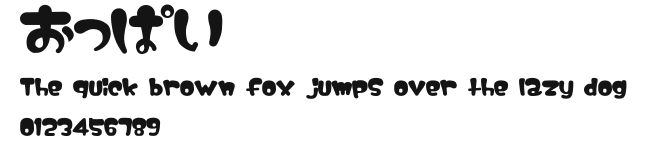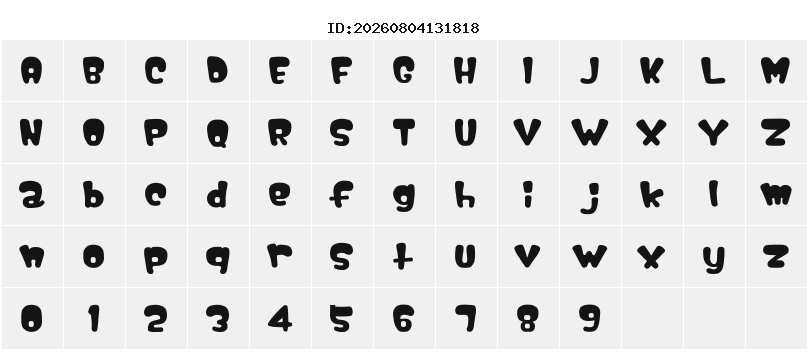
おっぱい Preview
• Font Name: おっぱい
• Font ID: おっぱい
• Full Font Name: おっぱい
• PostScript Name: Nipple
• Character Count: 14963
About おっぱい.ttf
おっぱい.ttf is a modern, elegant sans-serif font designed for ultimate readability and visual harmony. Perfect for branding, headlines, web design, and print materials.